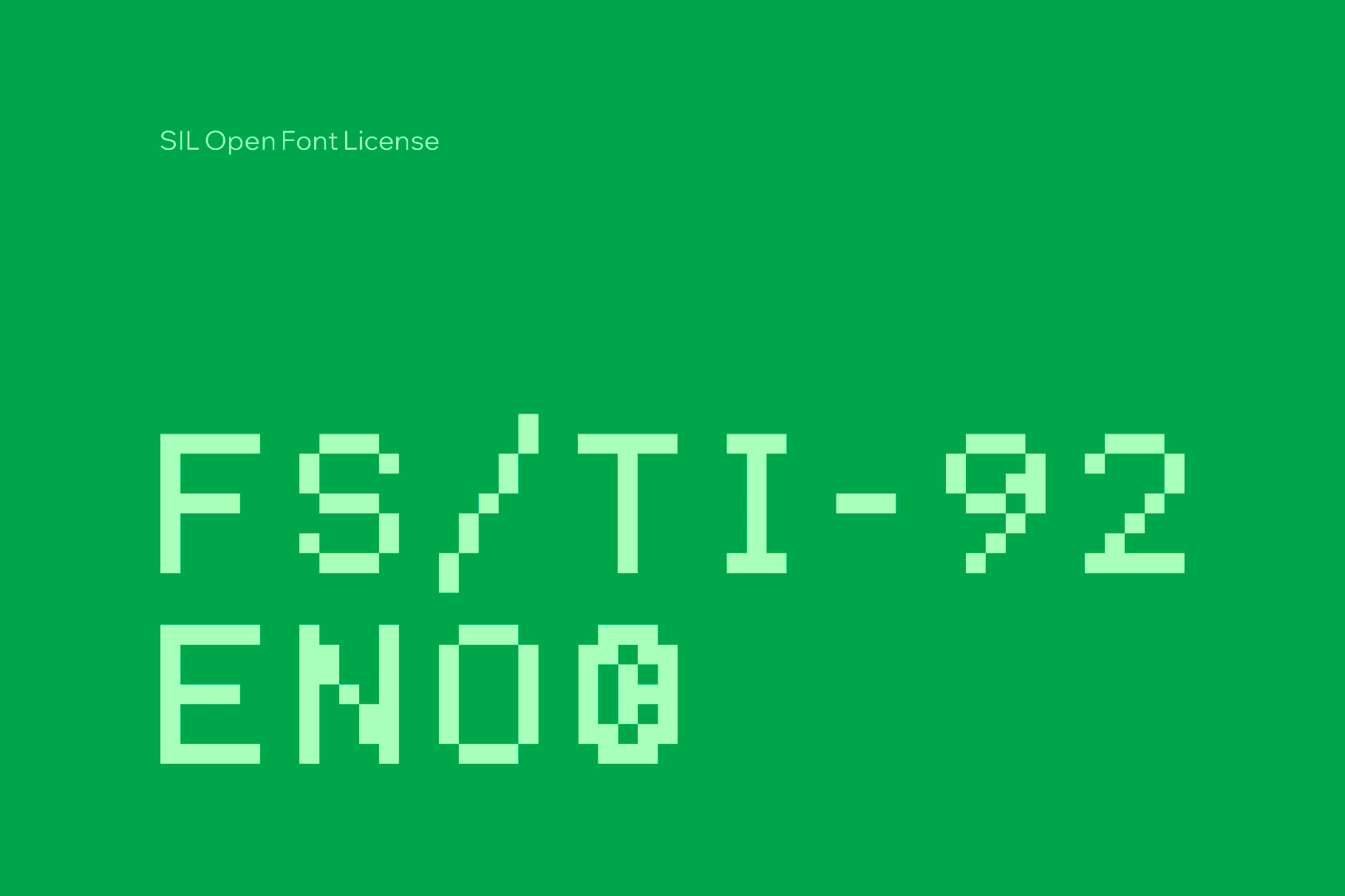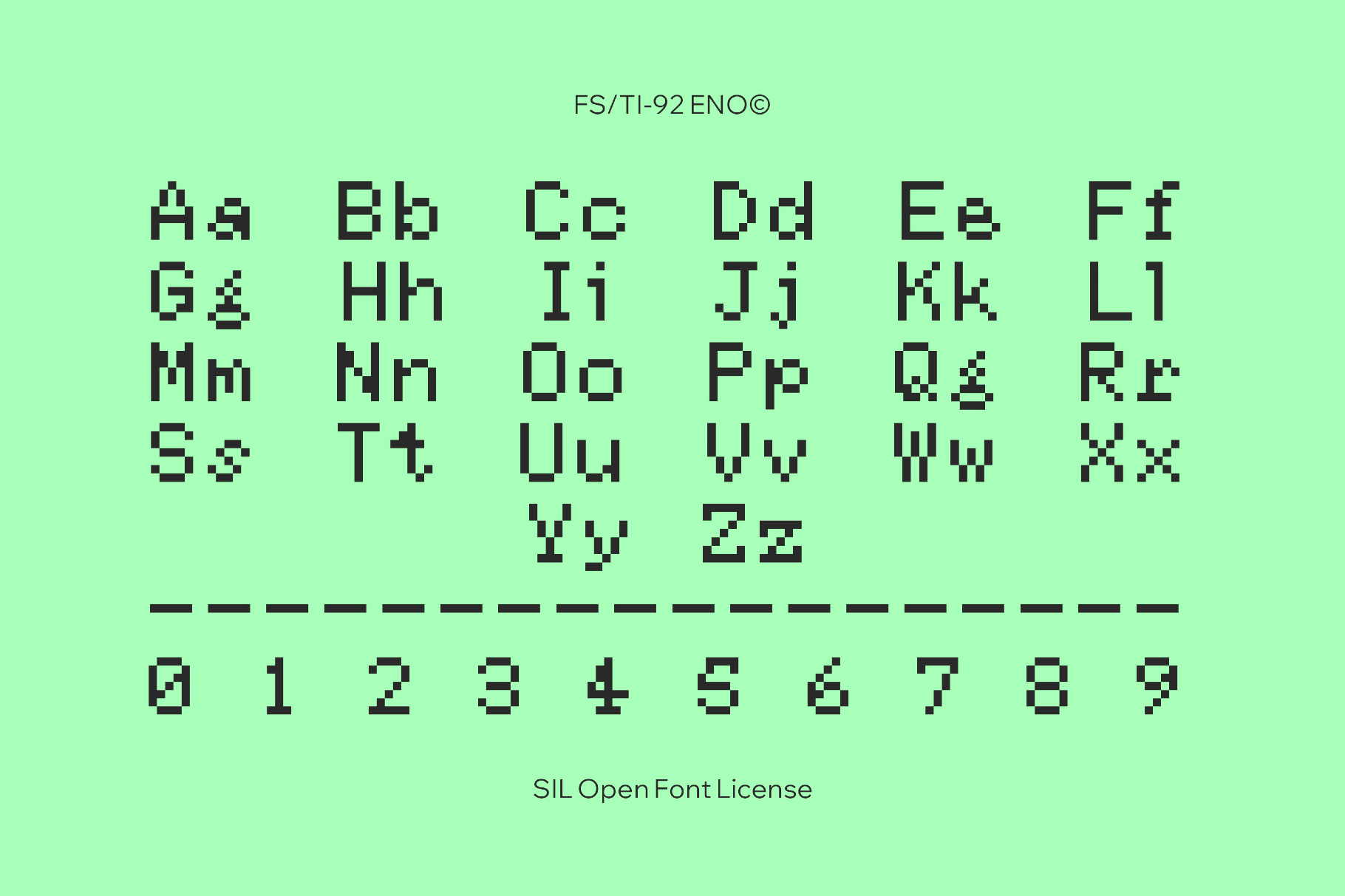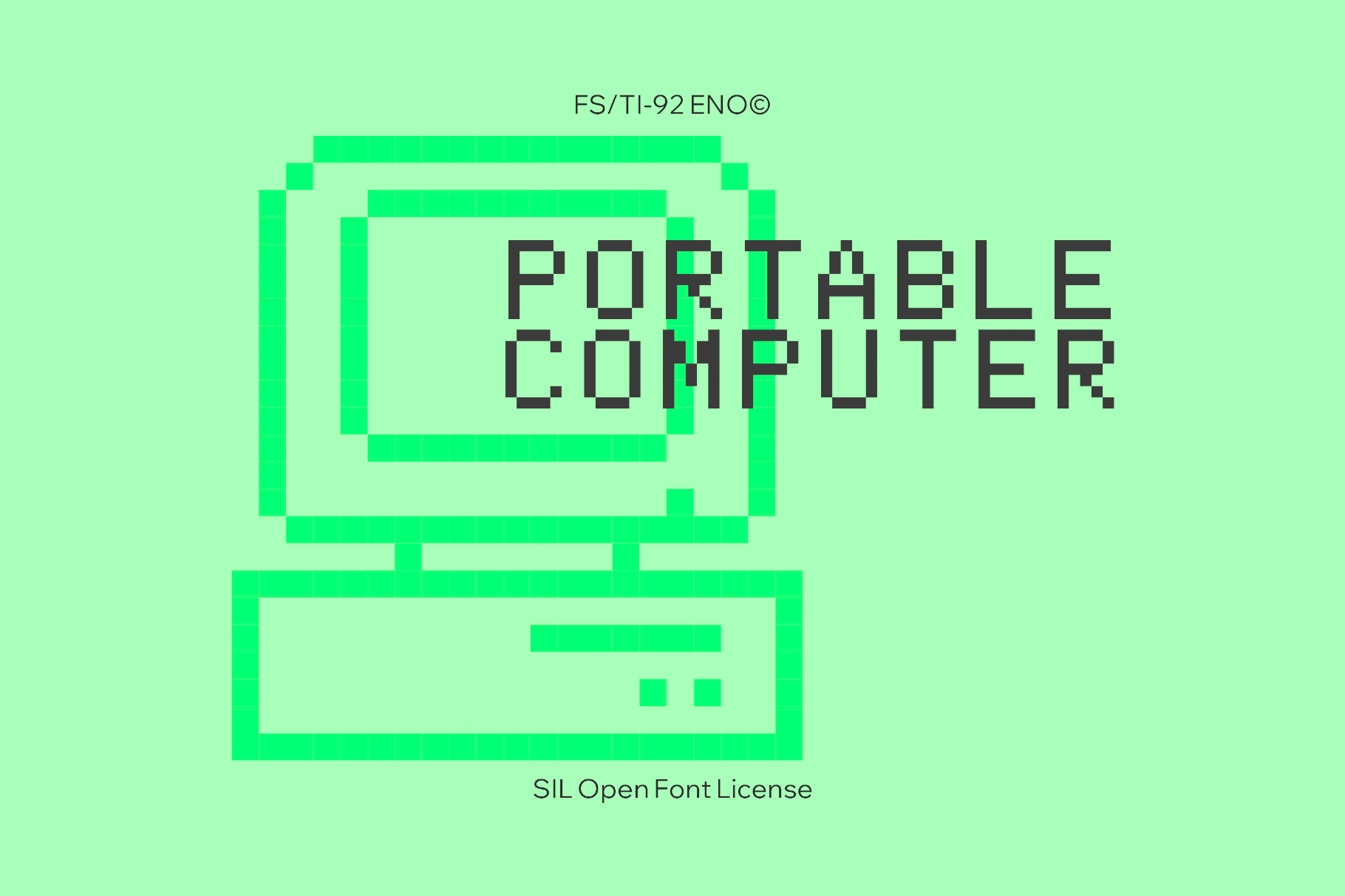
FS/TI-92 ENO© Font
FS/TI-92 ENO© is a compact 8×6-pixel sans with a handheld-calculator attitude. Every glyph has a modular look, pared down to the essentials: square modules, clipped diagonals, and tidy apertures with no ornament beyond the rhythm of the bitmap itself. It delivers a brisk, functional voice of the menu screens, lab interfaces, and early portable computers.
- Uppercase and lowercase letters, numbers, punctuation, and symbols.
- Extended mathematical symbols and metrics.
- Extra symbols and international characters with multilingual coverage across extended Latin, extended Cyrillic, extended Arabic, Korean, and Greek scripts.